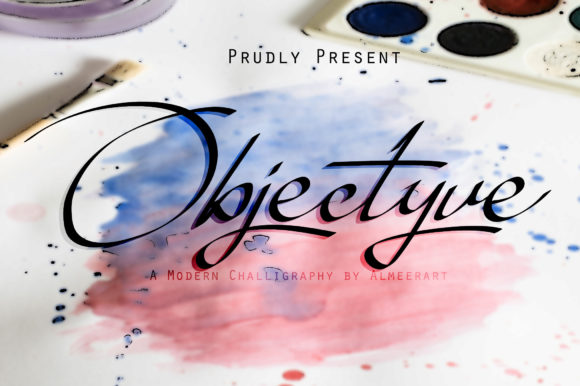
Feast your eyes on Objectyve, an enchanting script font that will add a touch of magic to your Christmas designs and beyond. Crafted with meticulous precision by almeerart, Objectyve boasts thin, flowing letters that dance across the page like delicate snowflakes. The end result is an air of elegance and sophistication that will make your creations stand out from the crowd.
Objectyve is not just a font; it's an expression of your creativity and style. With its versatility, you can use it for a wide range of projects, from Christmas cards and invitations to branding and packaging. Its delicate lines will add a touch of whimsy to your designs, while its readability ensures that your message will be conveyed with clarity and impact.
Imagine the delight of your customers when they receive a Christmas greeting card adorned with the exquisite Objectyve font. The flowing script will create a sense of warmth and joy, making your message even more heartfelt. Or picture the impact of a beautifully branded product package featuring Objectyve, where the font's elegance perfectly complements the premium quality of your product.